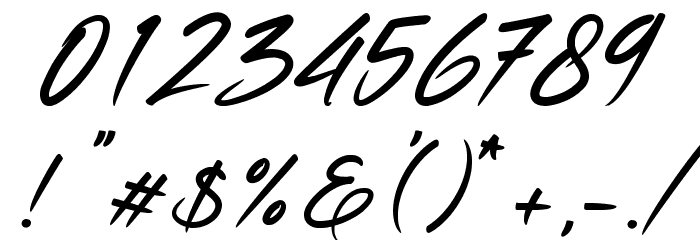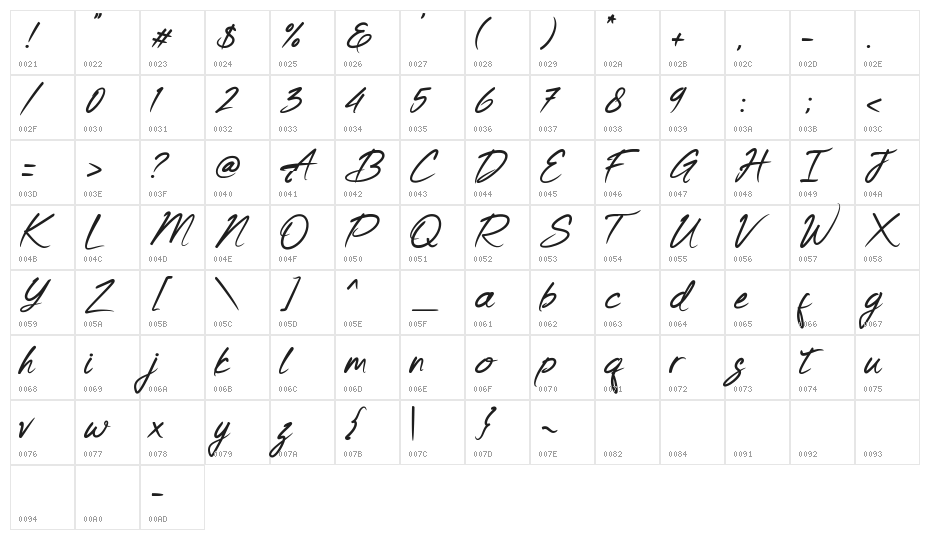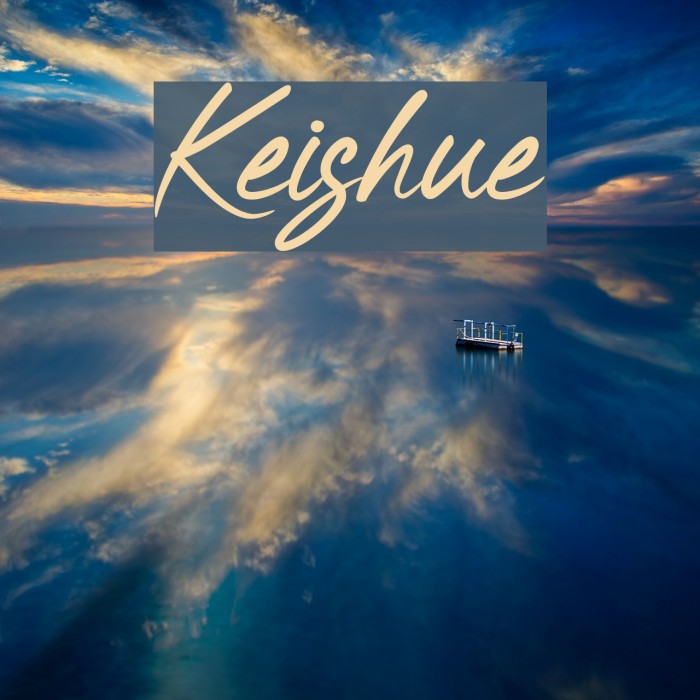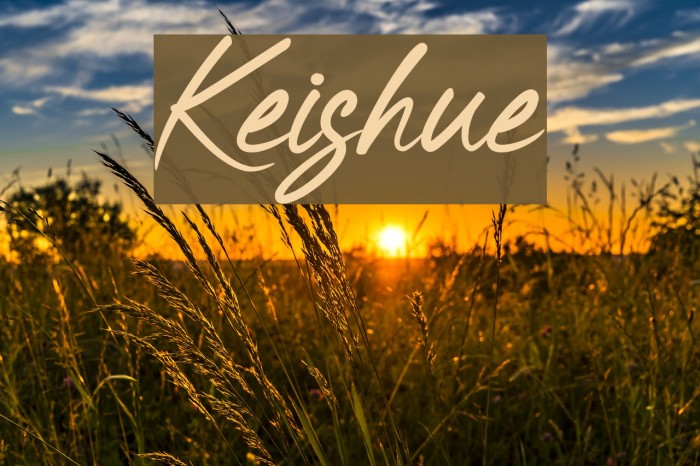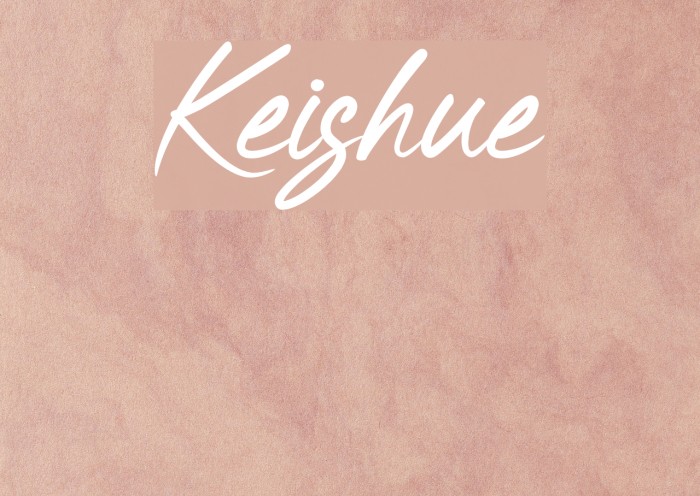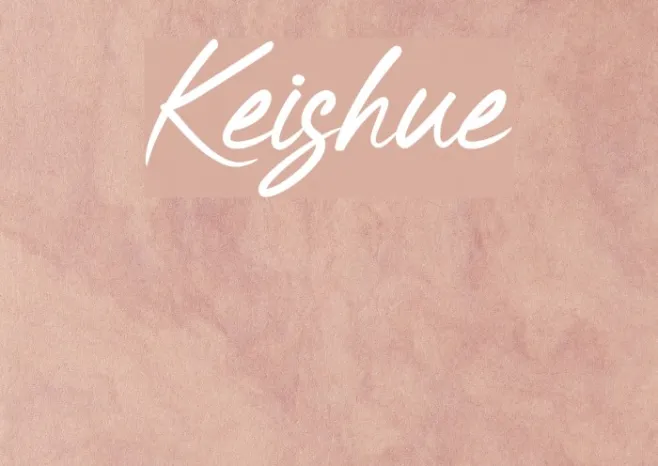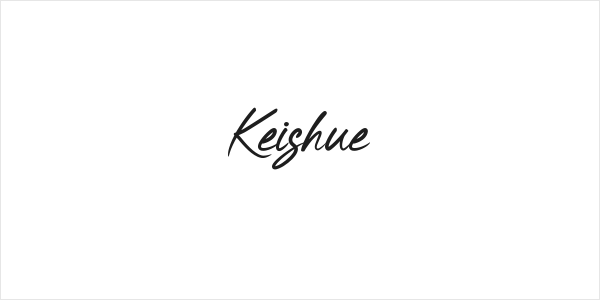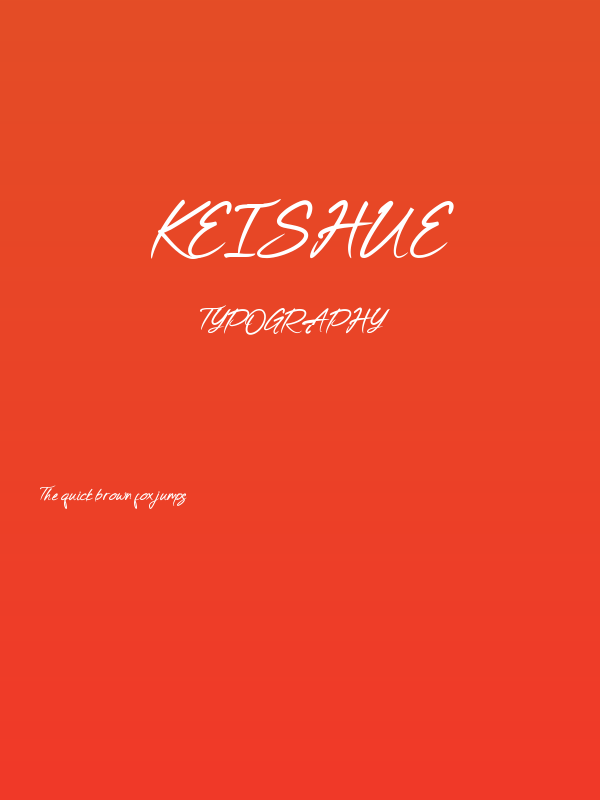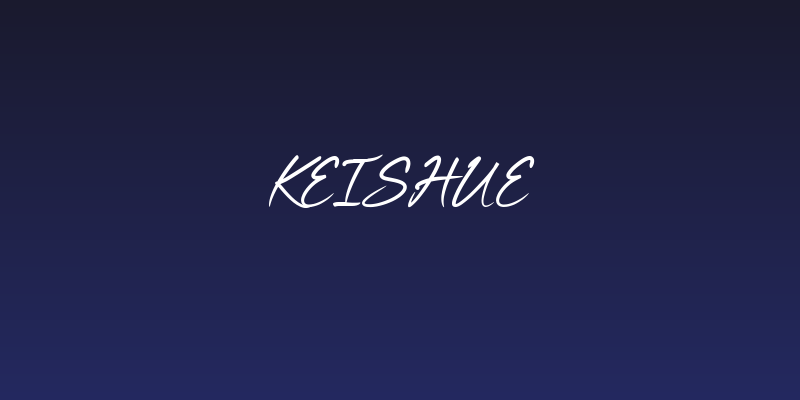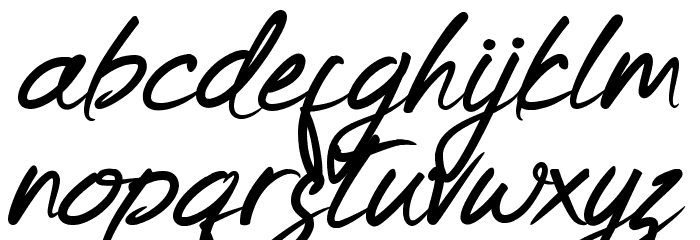
Keishue Font
Keishue Description
This font exudes a dynamic and expressive style, characterized by its fluid and cursive script. The letters are interconnected with smooth, flowing strokes that give it a handwritten appearance. The uppercase letters maintain a consistent height, while the lowercase letters exhibit a playful variation in size and slant. The numbers follow the same cursive style, ensuring uniformity across all characters. Special characters are elegantly integrated, enhancing the font's versatility. Its overall aesthetic is both elegant and casual, making it suitable for a variety of creative applications.
| Overall Style | Elegant, Casual |
| Use Case | Logos, Invitations, Personal projects |
| Proposed Projects | Ideal for wedding invitations, greeting cards, branding, and personal projects that require a touch of elegance and personality. |